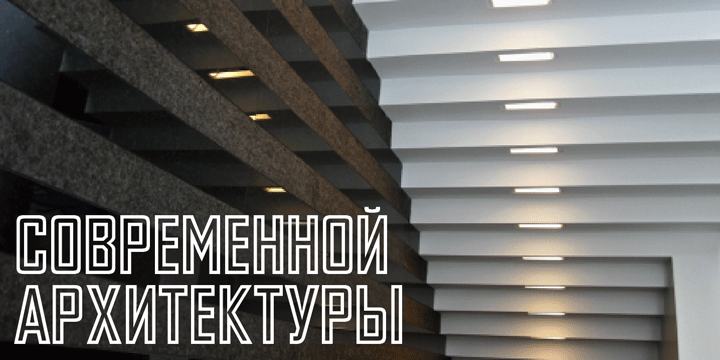
About this font
Two members of the Agency Gothic family, Agency Gothic Condensed and Agency Gothic Open, were commissioned by Publish magazine for their May 1990 redesign. Subsequently, I designed Agency Gothic Bold and Agency Gothic Inline.